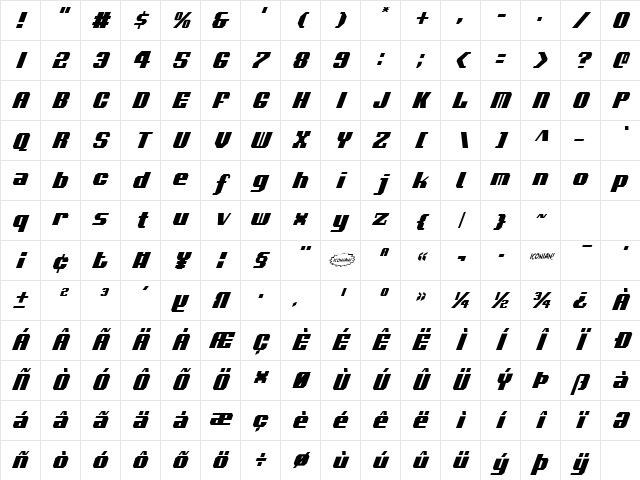
Voortrekker Condensed Italic Free Font
Voortrekker Condensed Italic Condensed Italic
Style: Condensed Italic
Voortrekker Condensed Italic Family
Voortrekker Condensed Italic Condensed Italic
Complete Voortrekker Condensed Italic glyph index. Displaying only characters natively supported by Voortrekker Condensed Italic font.
Design Context for Voortrekker Condensed Italic
Voortrekker Condensed Italic is a composed and adaptable typeface that performs quietly and consistently across a wide range of design contexts. The slanted form adds forward momentum and visual energy. Its narrow stance lets it pack a punch even in space-constrained designs.
Pro Tip: Use Voortrekker Condensed Italic for emphasis, pull quotes, and subheadings where its slanted energy can add rhythm to the layout.